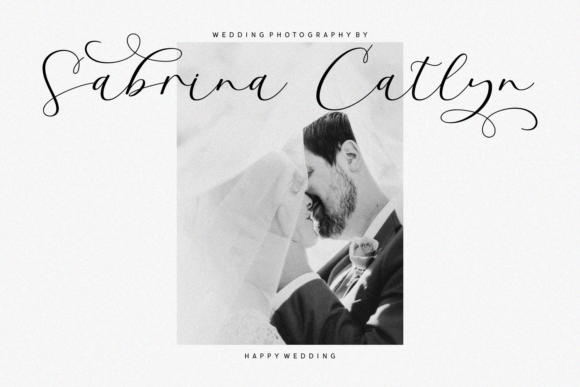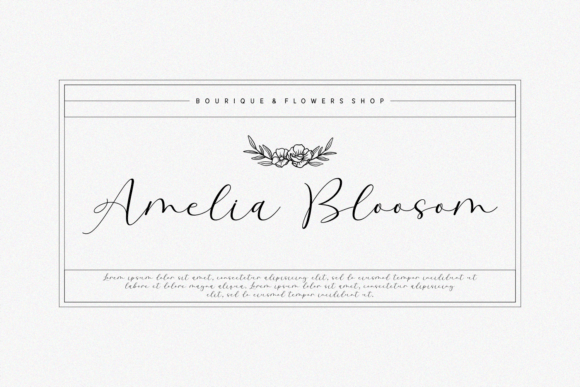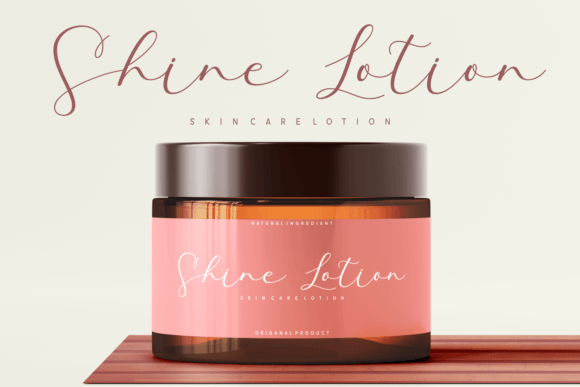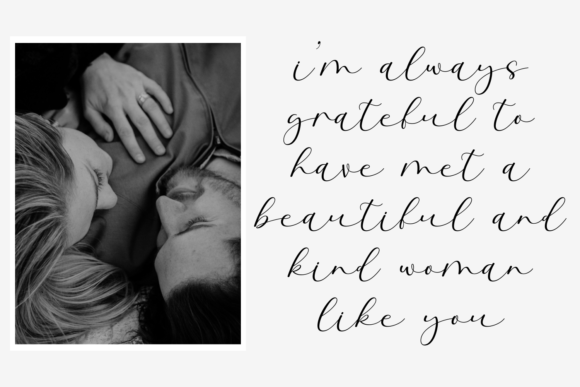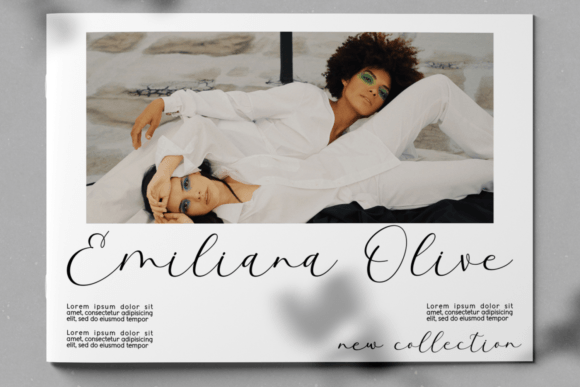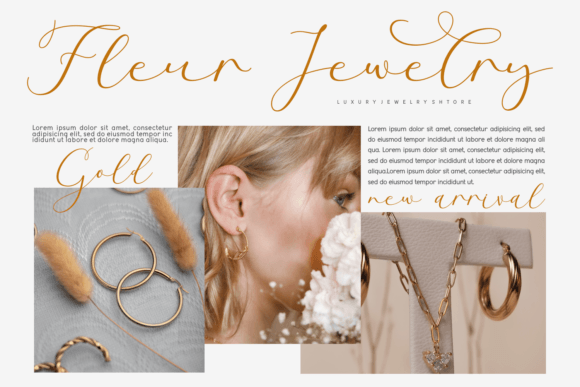
Introduction to Chrislyn Font
Have you ever been working on a creative project, pouring your heart and soul into every detail, only to realize that the perfect font is missing? That’s where the Chrislyn Font comes in – a stylish calligraphic font that will elevate your designs to the next level.
With its organic feel and beautiful cursive lines, Chrislyn Font is the perfect addition to any design project. Whether you’re creating invitations, business cards, or product designs, this high-quality font is sure to make your work stand out. And the best part? It’s PUA encoded, making it easy to access all the glyphs and swashes, giving you even more creative freedom.
Key Features of Chrislyn Font
- Chrislyn Font includes a wide range of characters and glyphs, perfect for professional use.
- Unique, modern design makes Chrislyn Font an excellent choice for creative projects requiring a touch of elegance.
Honest Review: Chrislyn Font
I recently stumbled upon the Chrislyn Font, and I must say, it’s a great addition to any designer’s toolkit. As a design enthusiast, I appreciate fonts that offer versatility and style.
What doesn’t work well: ⚠️ While the Chrislyn Font is a solid choice, it may not be the best option for complex typography projects. The font’s design, although beautiful, can be a bit too simplistic for intricate text arrangements.
Overall impression: The Chrislyn Font is a valuable design resource that can elevate any creative project. Its free download and high-quality design make it an excellent choice for designers looking to add a touch of sophistication to their work.
Some potential uses for the Chrislyn Font include:
- Wedding invitations and event design
- Book covers and editorial design
- Web design and user interface elements